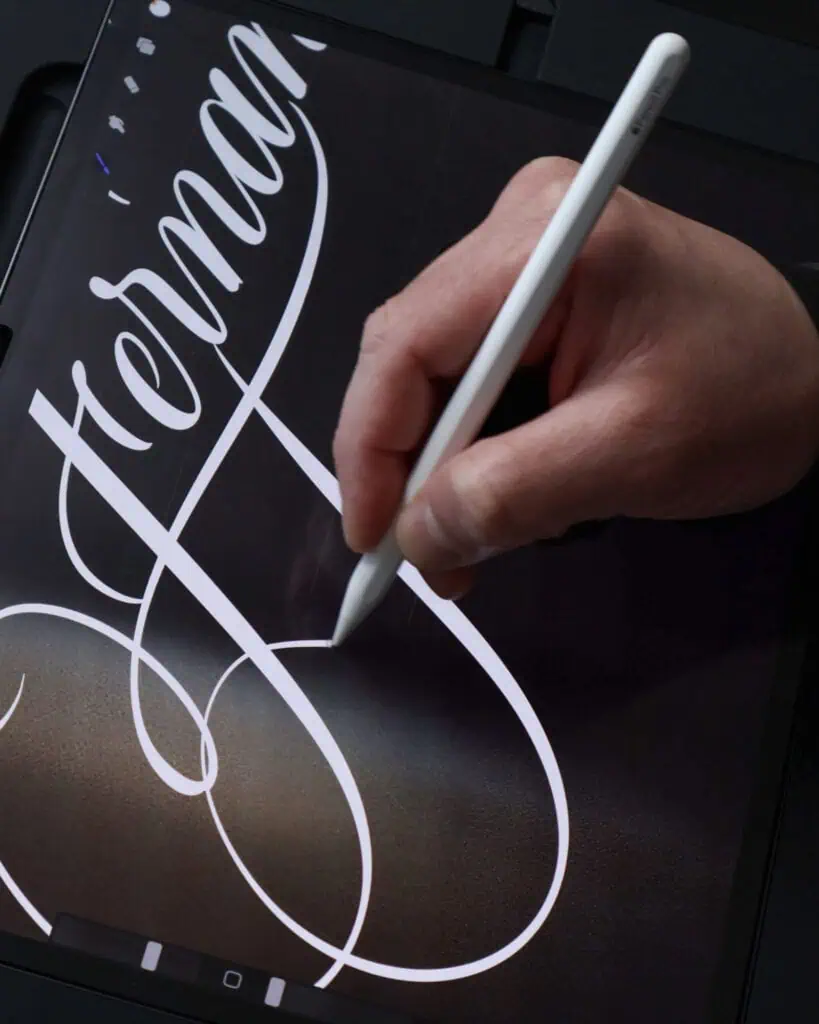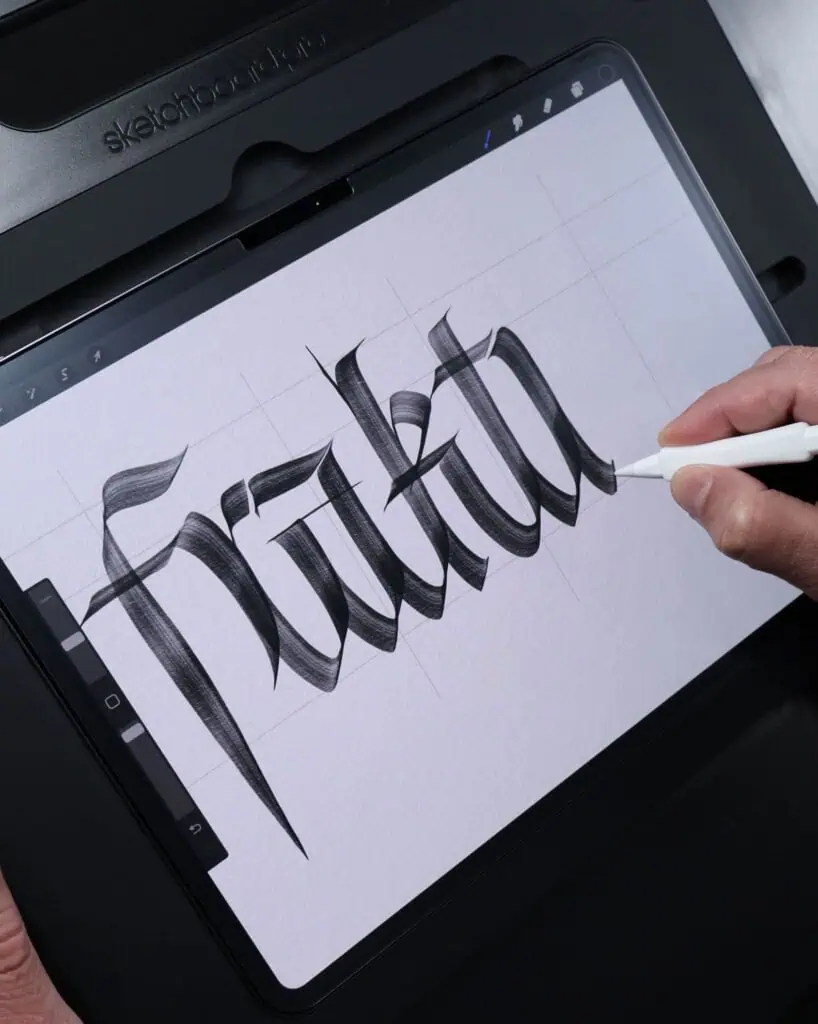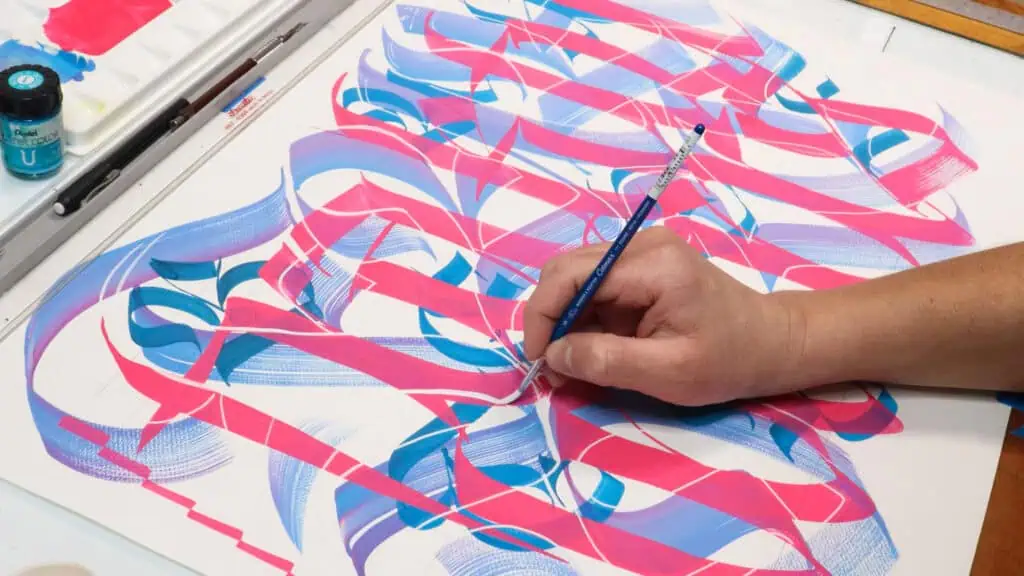
I had the pleasure of interviewing a truly unique calligraphy artist who’s been bridging the gap between traditional and digital lettering.
Over the past few years, there’s been a growing debate around whether calligraphy created on the iPad qualifies as “real” calligraphy.
Through this interview, I hope you’ll see what @letterjack (Jackson Alves) and I already believe — the iPad is just another tool. It’s not what you use, but how you use it that defines the art.
1. Give us a quick intro for those who don’t know you.
I’m Jackson Alves, a Brazilian calligrapher, lettering artist, and designer based in Orlando, FL. My passion for letters began about 15 years ago, and since then, I’ve been blending traditional calligraphy with modern digital techniques to create unique letterforms.
Over the years, I’ve had the opportunity to collaborate with global brands like Apple, Coca-Cola, Montblanc, and others. Beyond client work, I love sharing my knowledge through workshops and developing digital products—such as fonts and brushes—that help other artists bring their lettering to life.
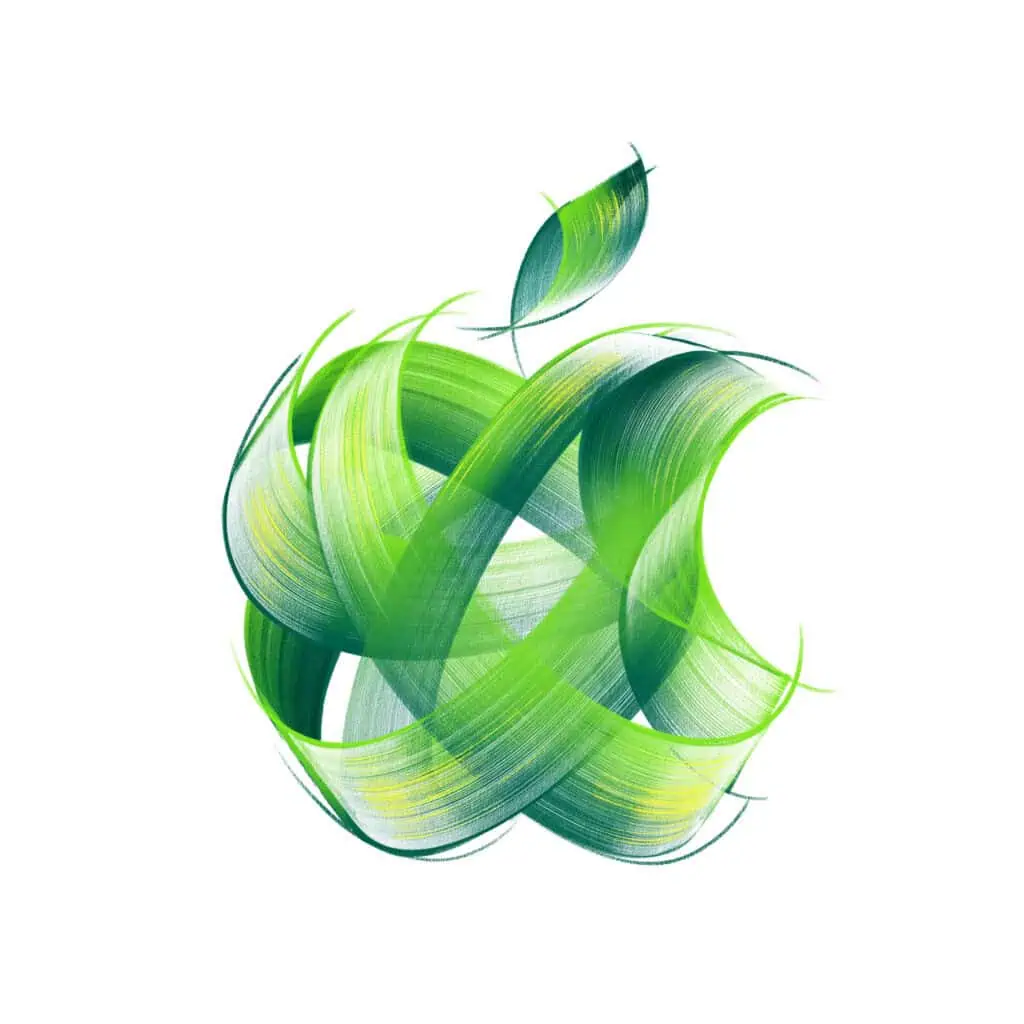
2. What inspired you to transition from traditional calligraphy to digital tools like Procreate?
My foundation is in traditional calligraphy, and I’ve always loved the tactile experience of ink on paper. However, as technology evolved, I saw an opportunity to expand my creative possibilities—I’ve always enjoyed experimenting with new techniques.
Procreate became a game-changer because it allows me to replicate the organic feel of traditional tools while adding speed, flexibility, and precision to my workflow. It also made my work more accessible, enabling me to easily make adjustments and explore new styles. Rather than replacing traditional calligraphy, digital tools have become an extension of my creativity, helping me push the boundaries of lettering.
3. Do you think someone should learn traditional calligraphy (at least the basics) before moving to digital, or can they start directly with digital tools?
I believe people should experience both—calligraphy on paper with ink and digital calligraphy, especially with Procreate. The order doesn’t matter, but it’s important to try both. You can start as I did, on paper, and then transition to digital, but you can also begin with digital if that’s more accessible.
What I do think is essential, though, is that at some point, everyone should also experience calligraphy in the physical world because it’s a unique and valuable experience.
4. What are some of the biggest misconceptions people have about digital calligraphy?
I think one of the biggest misconceptions about digital calligraphy is that it’s easier or requires less skill than traditional calligraphy. Many people assume that digital tools do all the work, but in reality, the same principles of letterforms, spacing, and stroke control apply. Mastering digital calligraphy still demands practice, discipline, and a deep understanding of letter structure.
Another common misconception is that once you go digital, there’s no need for traditional calligraphy. However, I see digital tools as an extension rather than a replacement—both mediums offer unique advantages, and combining them can enhance an artist’s skill set and creative possibilities.
5. Besides Procreate, what other apps or software do you use for digital calligraphy?
Nowadays, my favorite apps for digital calligraphy are Procreate and Fontself. The latest version of Fontself is truly impressive—it seamlessly blends the fluidity of calligraphy with the precision and flexibility of vector editing.
This combination allows for a more natural lettering experience while still taking advantage of the scalability and refinement that vectors offer.
6. Can you walk us through your typical digital calligraphy workflow—from sketch to final piece?
I usually start by creating sketches in Procreate, and from there, it depends on the project. If the final delivery needs to be in vector format, I take the sketch from Procreate directly to Illustrator for vectorization.
Sometimes, if a vector version isn’t necessary, I can finalize everything in Procreate using my own brushes.
7. What are your must-have Procreate brushes for calligraphy, and do you customize them yourself?
I might be biased when talking about this because I had tested several calligraphy brushes before, but I was only able to fully transition to digital calligraphy when I created my own brushes.
That’s why I say I’m biased—because, of course, I would recommend my own brush pack! I designed them to replicate the most natural experience of calligraphy on paper, and they are what truly make digital calligraphy enjoyable for me.
8. Do you use a specific iPad model or stylus that you think makes a big difference?
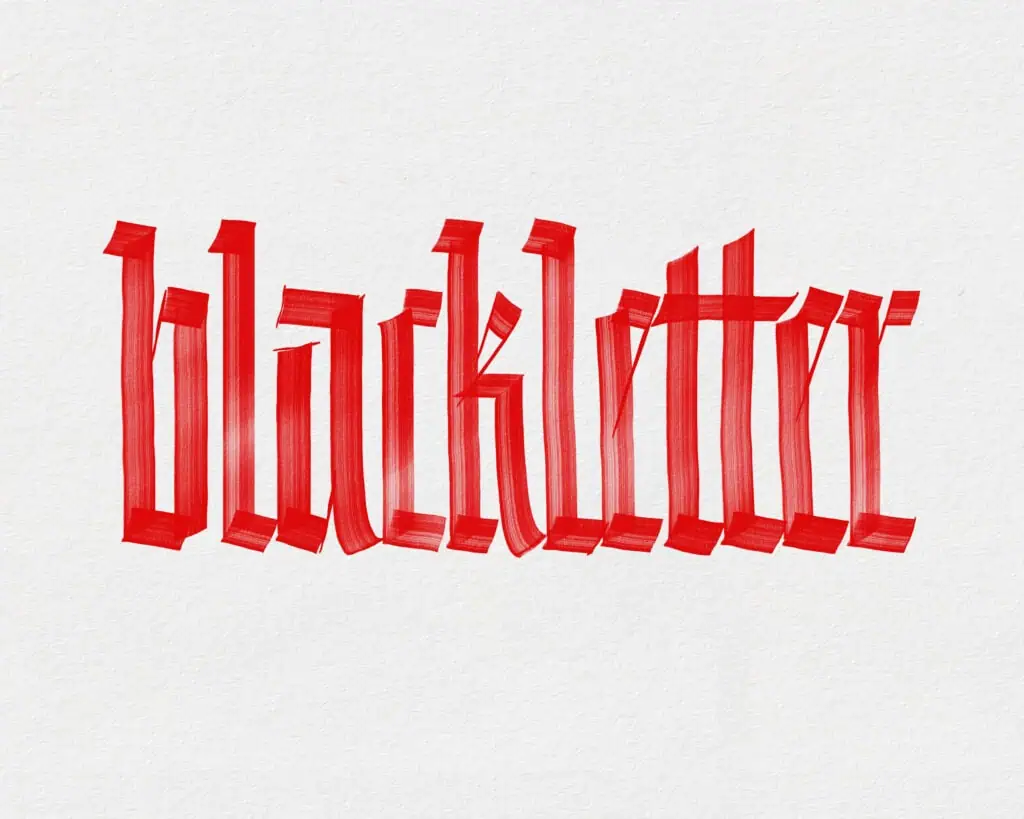
About the author
Hey, I’m Max. I’ve been drawing and messing around with letters since 2011. I don’t have a formal art degree—my background is actually in the kitchen as a former chef and on the streets painting graffiti with my friends. Over the last decade, through a ton of trial and error, I somehow turned that obsession into a full-time gig. These days, I design custom logotypes for global brands and paint large-scale murals. I started Lettering Daily just to create the kind of honest, no-BS tutorials I wish I’d had when I was starting out. Stick around, and let’s draw some letters.